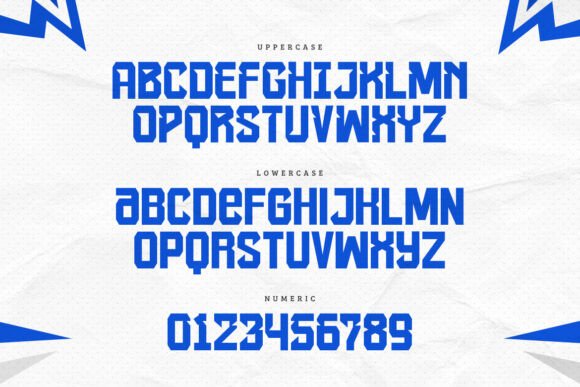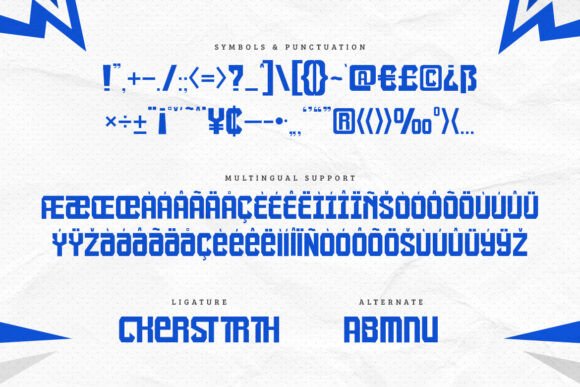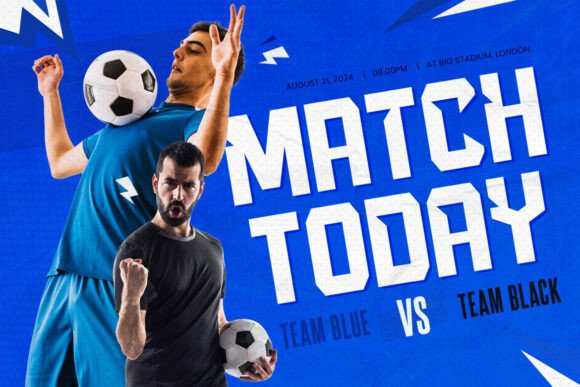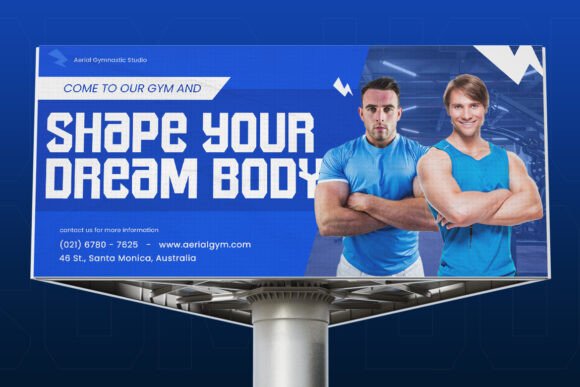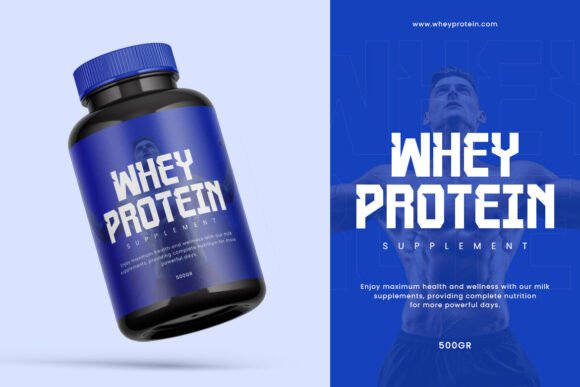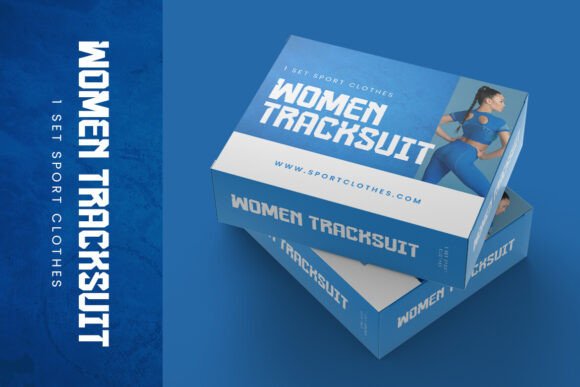
The Perfect Match for Your Next Big Win: Championer Font
Have you ever been tasked with designing a logo or branding for a sports team, only to find yourself stuck in a sea of bland, generic fonts? We’ve all been there. But what if you could tap into the raw energy and excitement of competition with a single typeface? Enter the Championer Font, a bold and dynamic sport font designed to capture the spirit of athleticism and competition.
With its strong, clean lines and powerful letterforms, the Championer Font is the perfect choice for sports branding, team jerseys, event posters, and merchandise. Whether you’re designing for a championship event or creating a logo for a sports team, this font delivers the impact and style you need to stand out. As a designer, you’ll find the Championer Font invaluable for its ability to evoke a sense of movement and excitement, making it an essential tool in your creative arsenal.
Key Features of Championer Font
- Font Family: Championer Font is a modern sans-serif font family designed for digital use.
- Unique Characteristics: Championer Font features a unique blend of modern and classic design elements, including clean lines, geometric shapes, and subtle rounded corners.
- Font Styles: Includes 8 font styles, ranging from Light to Bold, each with its own unique character and personality.
Championer Font Review
Overall, I found the Championer Font to be a stylish and versatile option for digital typography. ✨ The font’s modern aesthetic and bold lines make it a great choice for headings and titles, while its varying weights provide a range of options for body text.
The font’s legibility is also a major plus, making it easy to read even at smaller font sizes. ✨ Additionally, the font’s openness and lack of clutter make it a great choice for designs that require a clean and minimalist aesthetic.
Limits and Areas for Improvement
While the Championer Font has many strengths, it does have some limitations. ⚠️ One of the main issues is that the font’s bold weights can sometimes feel a bit overbearing, which may not be suitable for all designs.
Another area for improvement is the font’s support for non-Latin languages, which is currently limited. ⚠️ This may be a concern for designers who need to support multiple languages in their projects.
Despite its limitations, I believe the Championer Font is a solid choice for digital typography. ✨ With its stylish aesthetic, high legibility, and versatility, it’s a great option for a wide range of design applications.
- Modern aesthetic and bold lines
- Varying weights for body text
- High legibility, even at smaller font sizes
- Clean and minimalist design
Championer Font is a versatile font that can be used for a variety of purposes, including:
- Body text